Introducing Spider-Man Homecoming Font! It is a 2017 American superhero film based on the Marvel Comics character Spider-Man, co-produced by Columbia Pictures and Marvel Studios.
The font used for the film title is Good Times by Typodermic Fonts. The “Homecoming” part is very likely hand-lettered and the closest font we can find is Easy Speech by Jean-Jacques Morello.
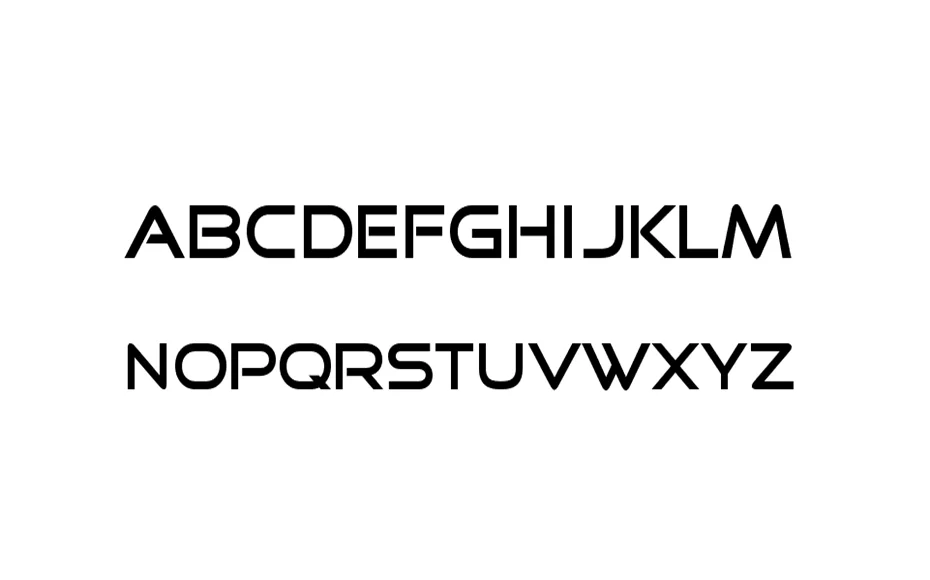
Let’s take a look at the appearance of this font and how it will appear.
Due to its clean and clean texture, you may easily use this outstanding font for the ambitious heading, ebook covers, brand designs, cloth printing, official cards, precise emblems, and more.
Good Times Font comes in a single regular style that more than 521 characters. Easy Speech comes also a single style.